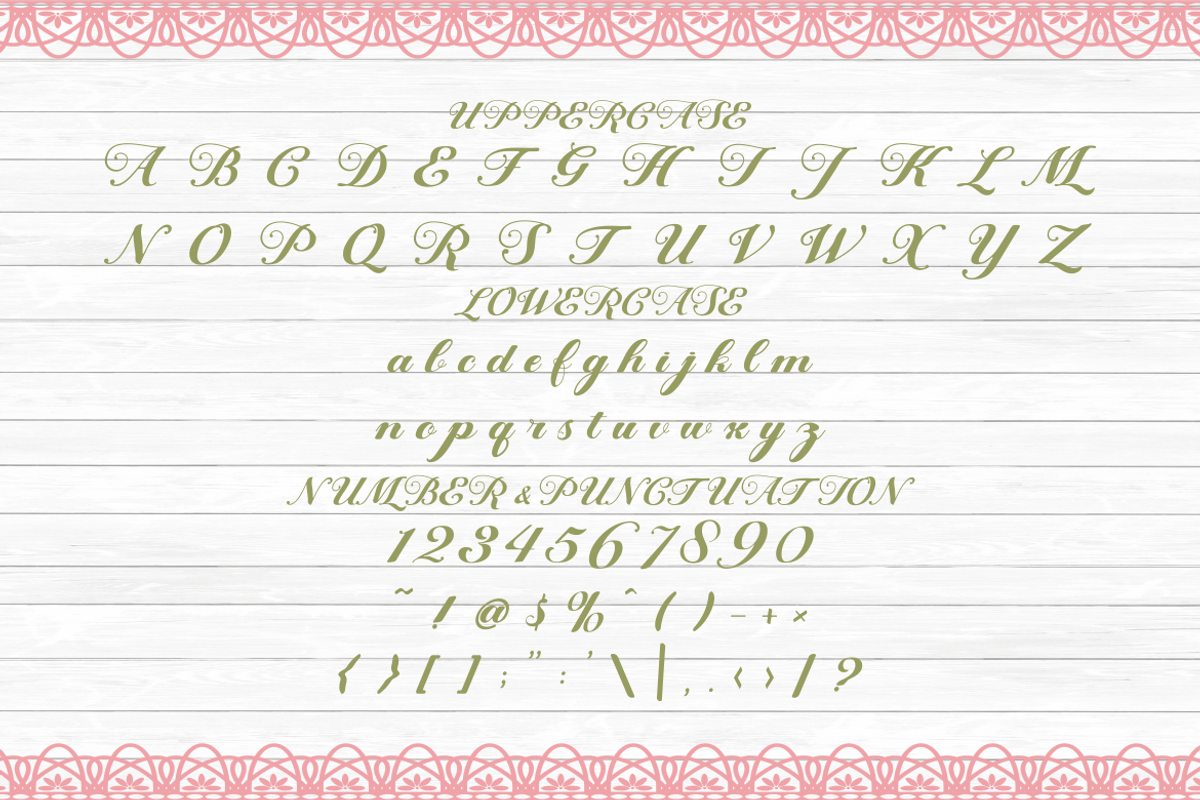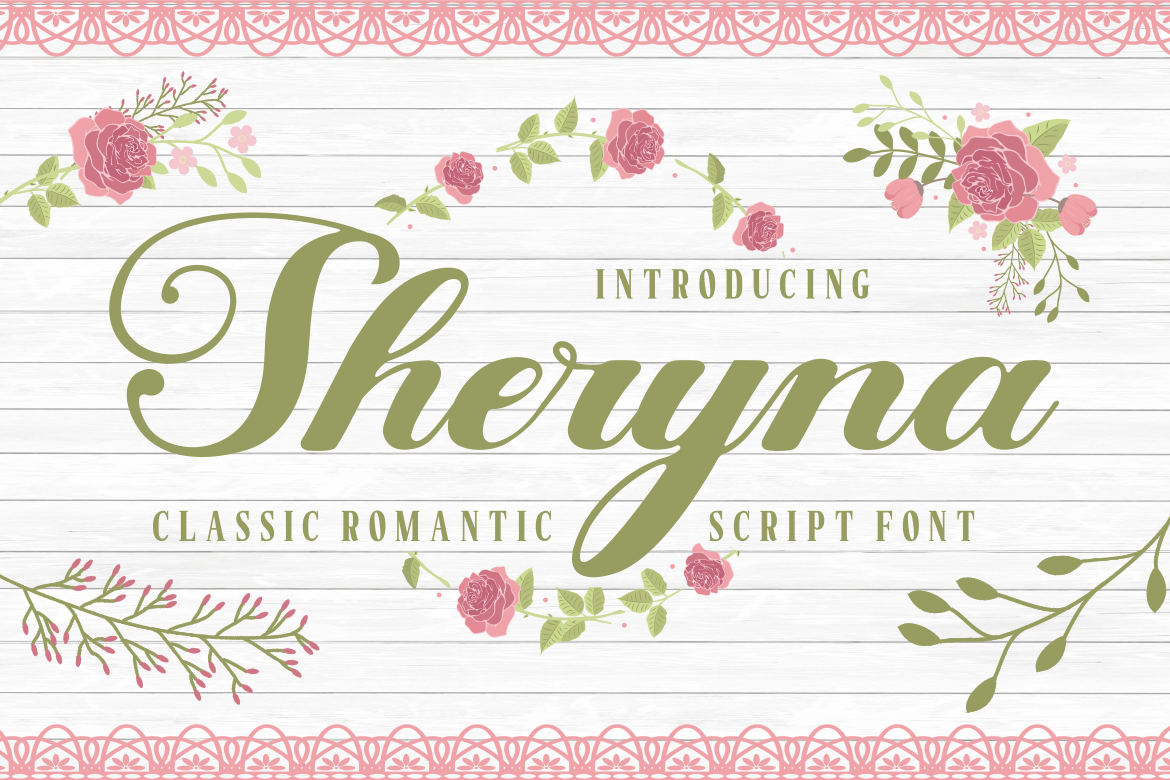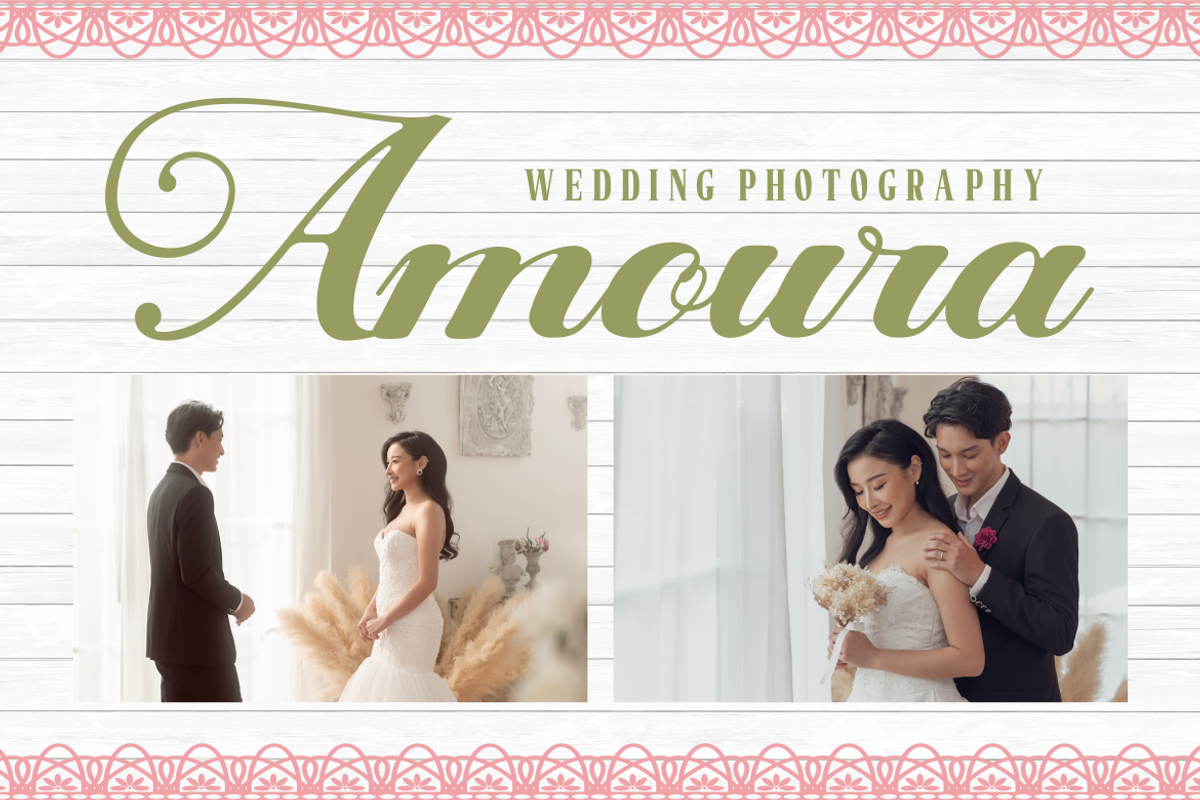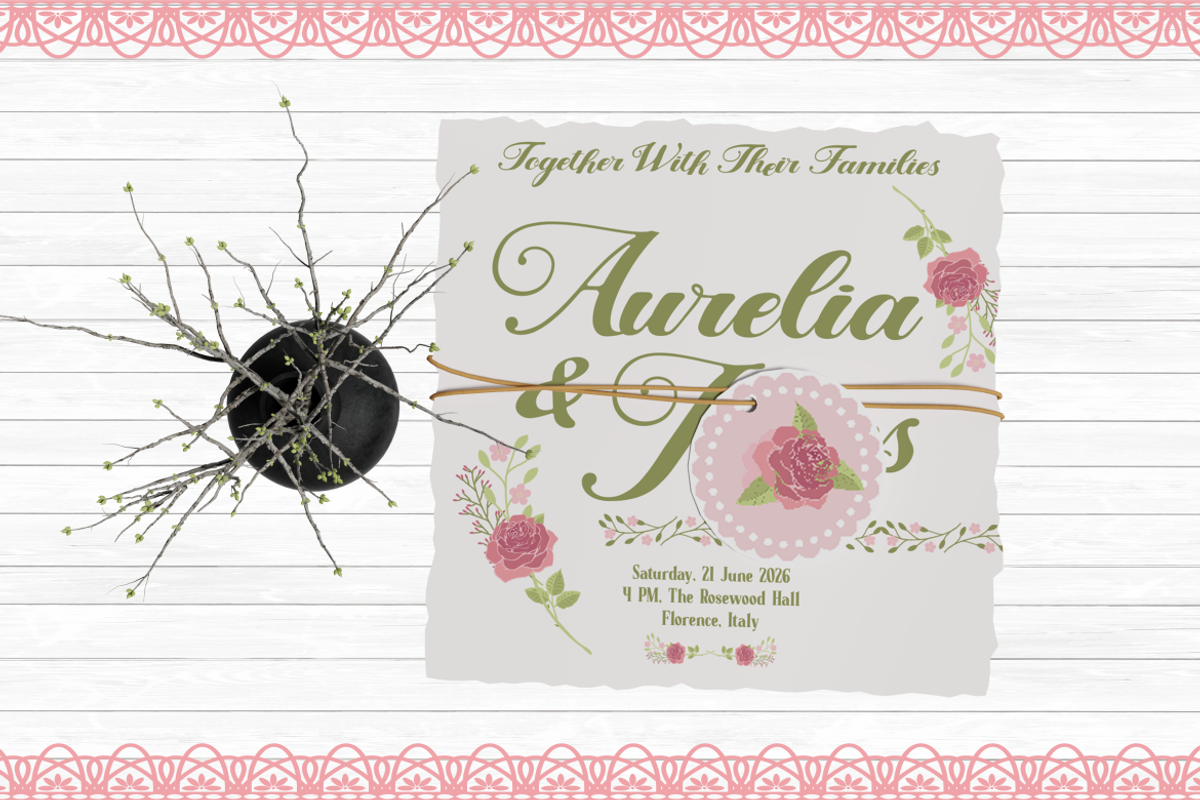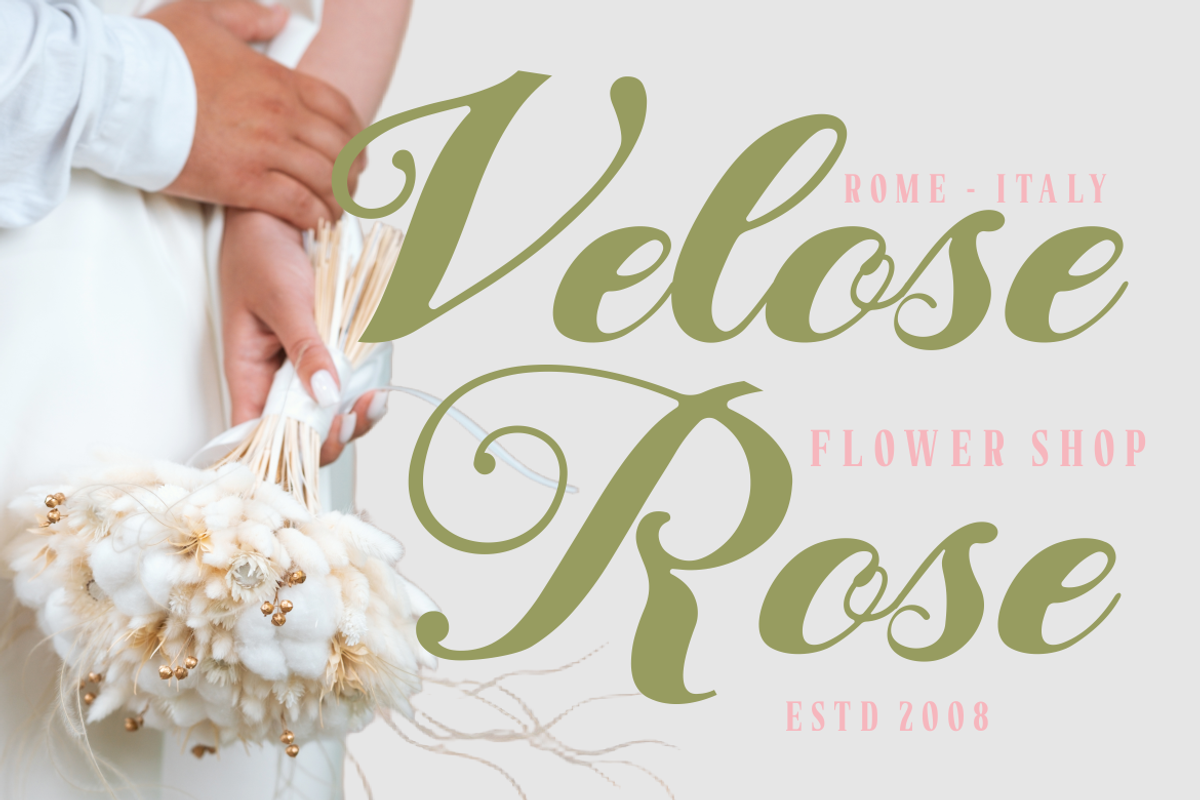
Sheryna Classic Romantic Script Font
Sheryna Classic Romantic Script Font is a refined script typeface inspired by timeless calligraphy. The letterforms feature smooth flowing strokes with moderate contrast between thick and thin lines. Each character appears slightly tall with graceful curves and extended swashes. The terminals are rounded and soft, creating a delicate and fluid rhythm. Fine details in the strokes add an elegant and sophisticated appearance. The connections between letters feel natural and continuous, enhancing readability in script form. Sheryna Classic Romantic Script Font blends classic handwriting style with modern clarity. The design communicates romance, elegance, and emotional warmth. It works well for logo design, wedding branding, and formal display typography.
The elegant structure creates a soft and intimate tone for refined design projects. Designers can use this typeface for wedding invitations, event branding, and decorative stationery. It fits perfectly for themes related to romance, celebration, and special occasions. The flowing shapes support stylish headlines, quotes, and personalized messages. Sheryna Classic Romantic Script Font also works well for greeting cards, packaging labels, magazine titles, and book covers. It suits branding for florists, wedding planners, beauty services, and boutique businesses. The balanced stroke contrast helps maintain readability while preserving decorative appeal. This typeface helps create a graceful and memorable visual identity.